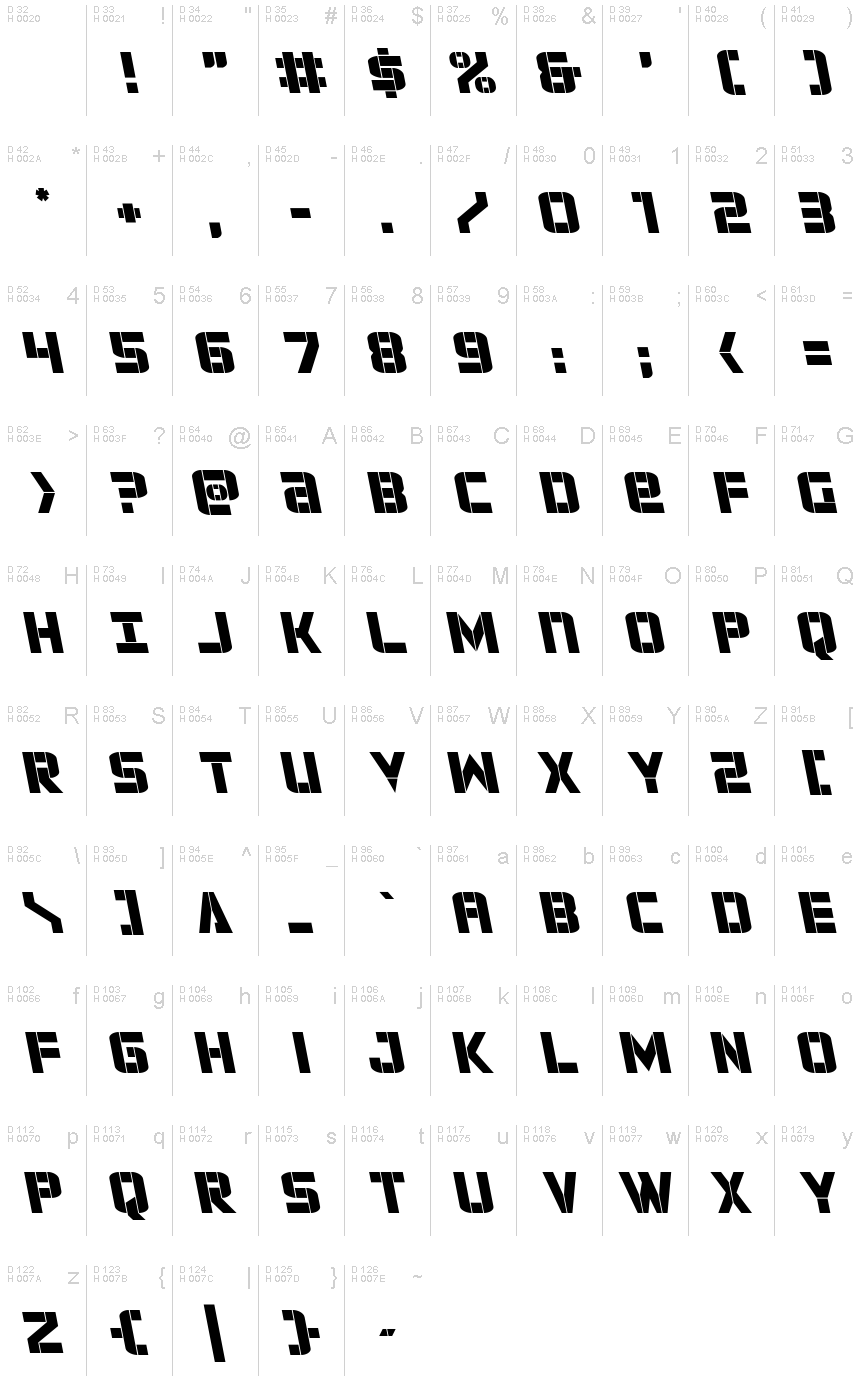
Force Commander Semi-Leftalic
Designed by Iconian Fonts, Force Commander Semi-Leftalic is an arrestingly bold display typeface that commands attention. Its military-inspired aesthetic exudes strength and authority, characterized by robust, angular lines and a striking diagonal slant that lends a dynamic sense of movement. The font's solid weight enhances its commanding presence, making it ideal for headlines, posters, or any design where impact is paramount.
Perfect for creating a powerful visual statement in contexts ranging from video game titles to movie posters or branding materials with an edgy, authoritative touch. Force Commander Semi-Leftalic integrates seamlessly into designs requiring a bold and assertive flair.